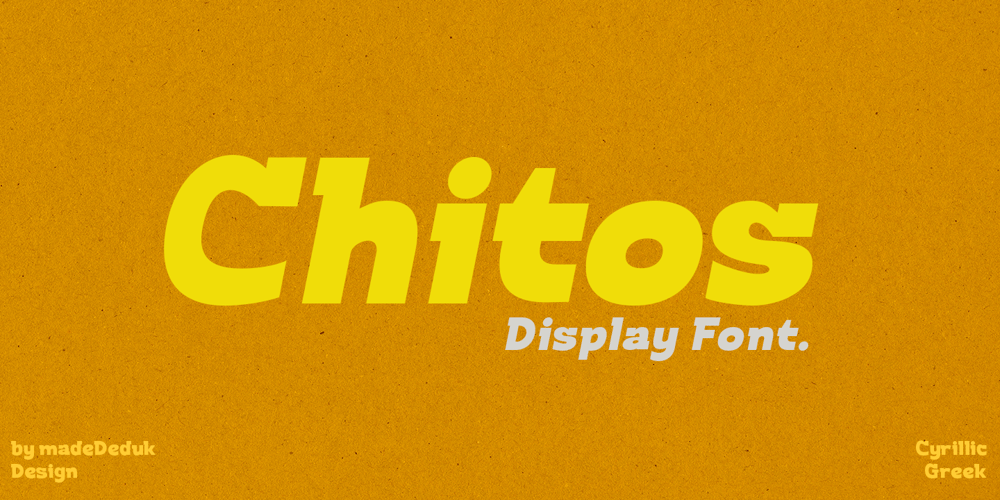
Chitos Font Family was designed by madededuk and published by madeDeduk. Chitos contains 2 styles and family package options. Chitos is a display font, come with single weight, legible and expressive shapes. A lot of stylish alternates characters will makes this font suitable for your any project design.Feature Uppercase & Lowercase Number & Symbol International Glyphs (Cyrillic & Greek) Multilingual support Alternative Ligature Feel free to drop us a message any time and follow my shop for upcoming updatesHope you enjoy it.